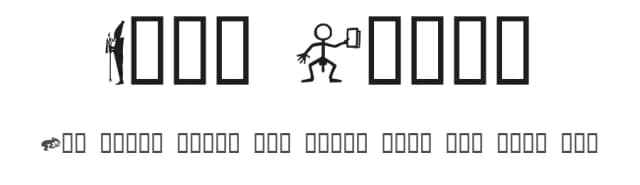
Wizardry is a decorative font designed by Shrine Of Isis Font Foudry. It includes 66 glyphs, a regular weight, TTF (TrueType) format, and 89 languages. Wizardry is free to download; check the license details on this page before commercial use. Decorative fonts like Wizardry work best for logos, posters, packaging, and standout headlines.
Wizardry Font is a decorative font that shines as a display or heading face. Pair it with a clean sans-serif or serif font for body text β the contrast creates a clear hierarchy while the two styles stay balanced and easy to read.
Wizardry Font is a decorative typeface by Shrine Of Isis Font Foudry, ideal for logos, invitations, branding, and creative projects.